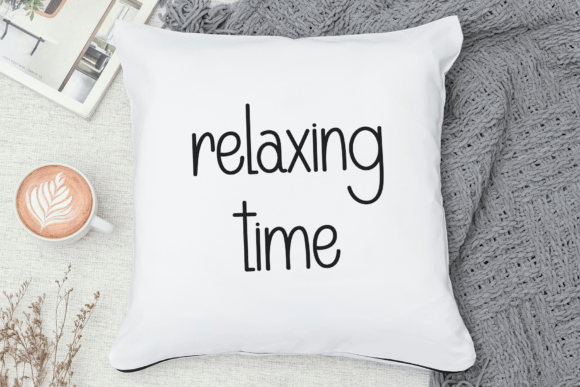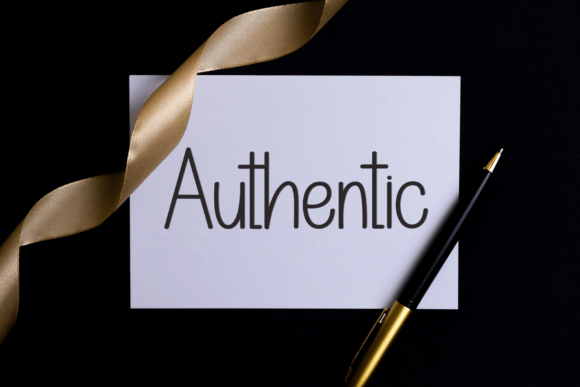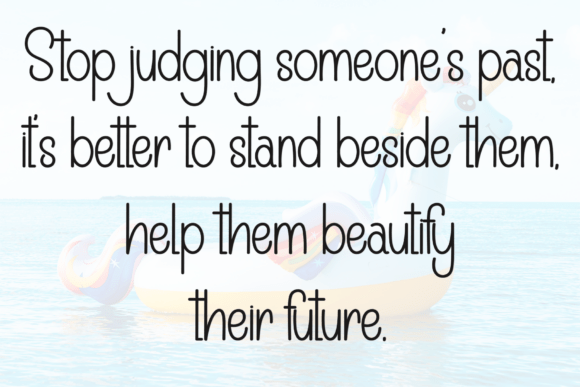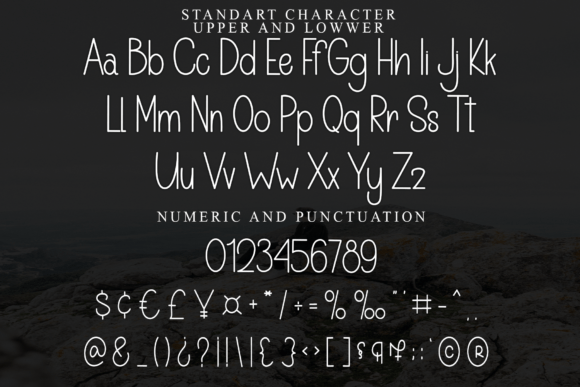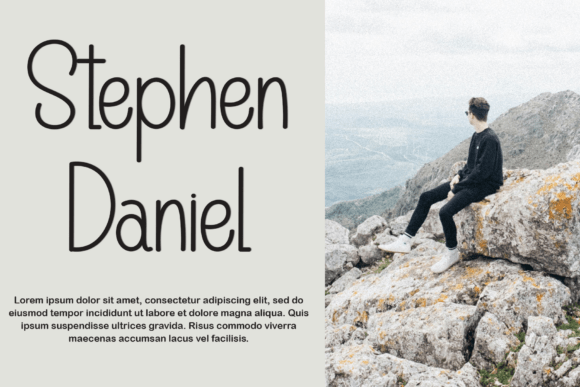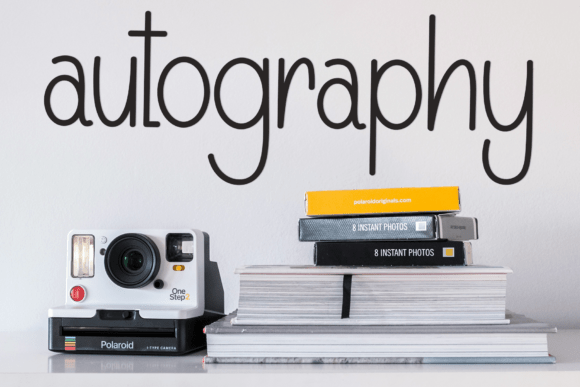
Introduction to Ocean Pedia Font
As you sit at your desk, surrounded by scraps of paper, glue sticks, and half-finished projects, the holiday season is in full swing. You’re in the midst of planning the perfect gift, card, or decoration, but something’s missing – that special touch that sets your creative project apart from the rest. That’s where the Ocean Pedia Font comes in, a high-quality design resource that adds a dash of whimsy and charm to any design.
With its intricate details and festive flair, the Ocean Pedia Font is the perfect companion for any holiday-themed project. Whether you’re creating greeting cards, gift tags, or even designing a transparent background for a social media post, this font is sure to bring a sense of magic and wonder to your words.
Key Features of Ocean Pedia Font
- High-quality, professional design for various creative projects, making it an excellent design resource.
- Includes a comprehensive set of glyphs, covering a wide range of languages, making it a versatile design resource.
- Designed with a modern, clean aesthetic, perfect for use in various design applications, including branding, logos, and digital media.
Honest Review: Ocean Pedia Font
As a designer, I’m always on the lookout for high-quality design resources to enhance my creative projects. Recently, I stumbled upon the Ocean Pedia Font, and I’m excited to share my honest review.
What works well about the Ocean Pedia Font is its versatility. It’s perfect for a wide range of design projects, from logo designs to infographics. The font’s modern and sleek design makes it an excellent choice for any creative project.
- ✨ High-quality design that’s perfect for various projects
- ✨ Includes a transparent background, making it easy to customize
One limitation I’ve noticed is that the font might not be suitable for projects that require a more traditional or classic look. Additionally, the font’s style might not be to everyone’s taste.
Overall, I’m impressed with the Ocean Pedia Font. It’s a valuable addition to any designer’s toolkit, and I would definitely recommend it to fellow designers. With its high-quality design and transparent background, it’s an excellent choice for any creative project.
How to Use Ocean Pedia Font
Designing with Ocean Pedia Font
Common Use Cases and Tips
The Ocean Pedia Font is suitable for a wide range of applications, including branding, advertising, and digital media. To get the most out of this font, experiment with different font sizes, colors, and combinations to create unique and visually appealing designs.